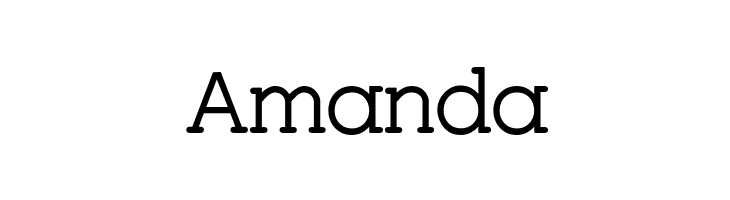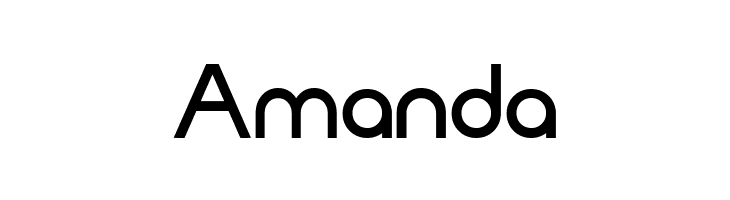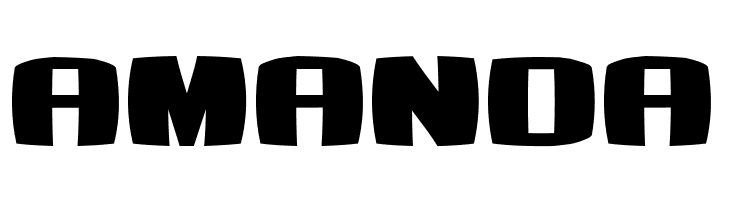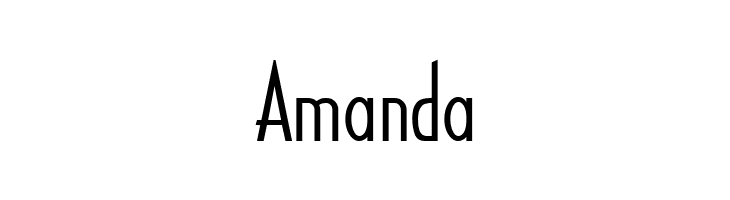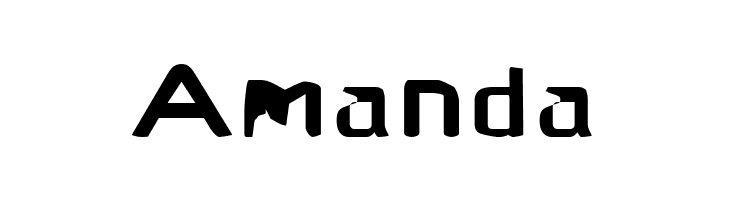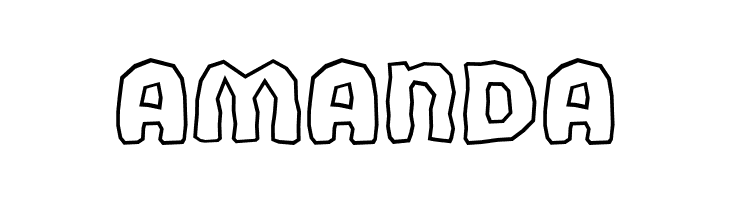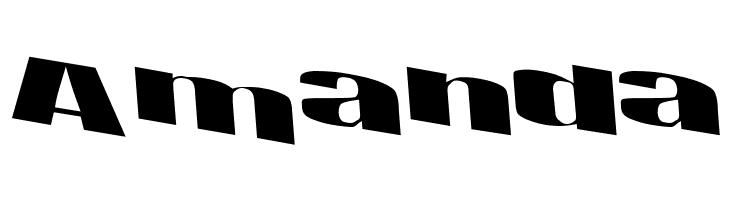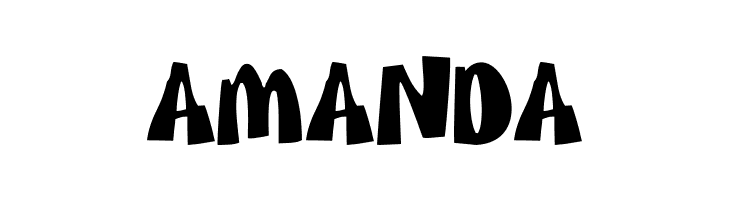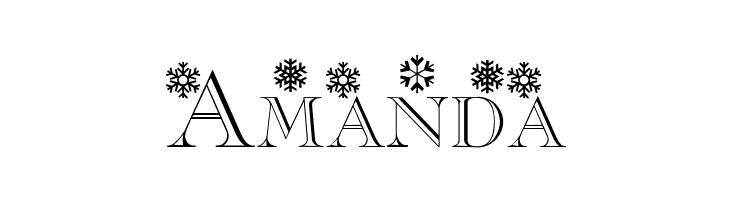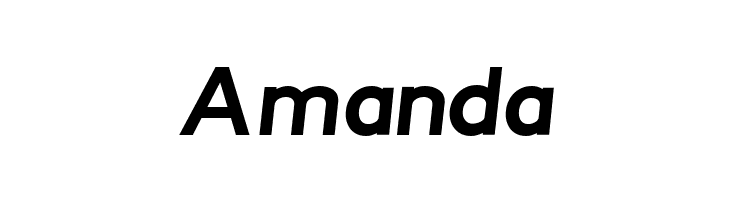
A clean, modern semi-bold font with a friendly and balanced design.
A modern, geometric font with smooth, rounded edges and consistent structure.
A bold, blocky font with high contrast and a modern, impactful style.
A bold, playful font with whimsical lowercase letters and thick strokes.
A playful font combining geometric and cursive elements with bold strokes.
A playful and bold font with exaggerated curves and dynamic contrast.
A decorative serif font with snowflake embellishments, perfect for festive designs.
A bold, italic font with a modern and dynamic style.
A bold, decorative font with geometric influences and high contrast.
A playful, hand-drawn font with tall, narrow letters and a quirky, organic style.
A bold, geometric font with a modern and playful design.
A futuristic, angular font with geometric shapes and sharp edges.
A playful, bold, and hand-drawn style font with rounded letterforms.
A bold, geometric font with a modern and industrial feel.
A decorative, geometric font with a 3D, crystal-like design.